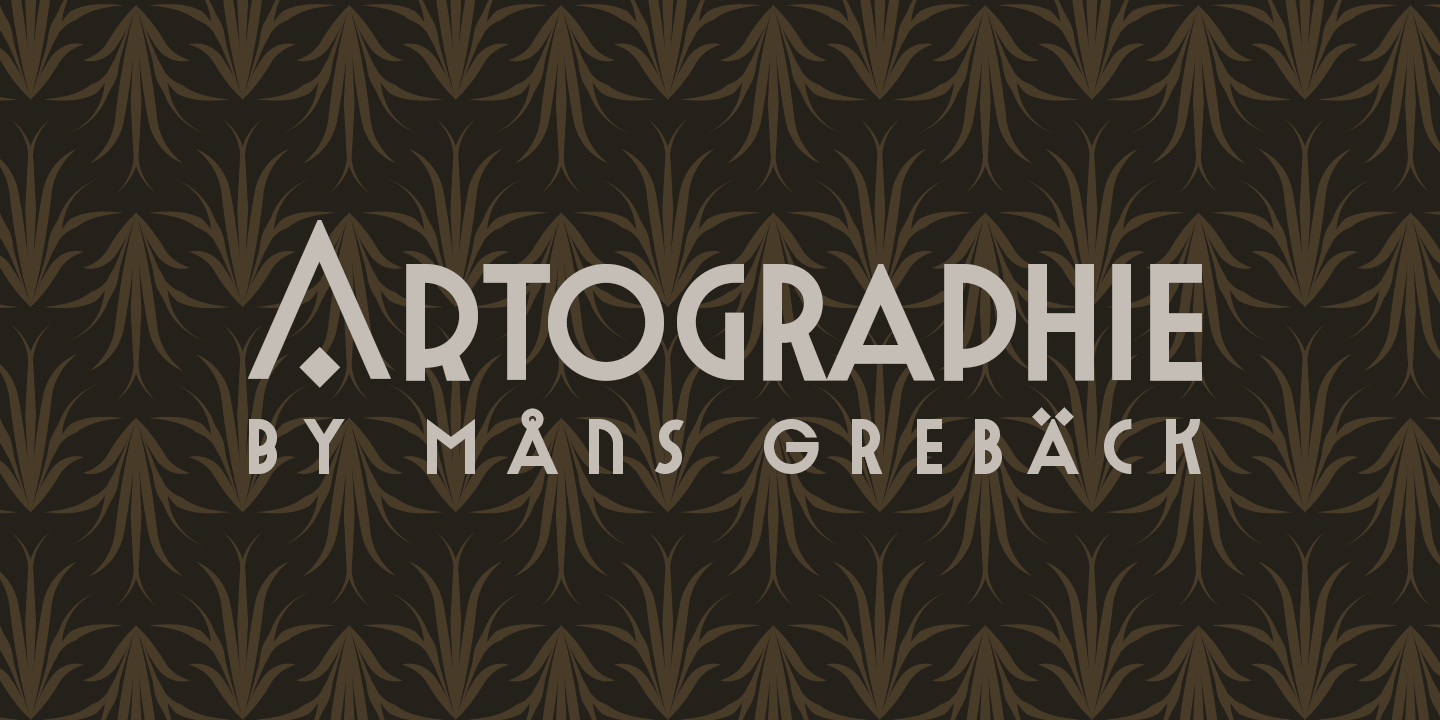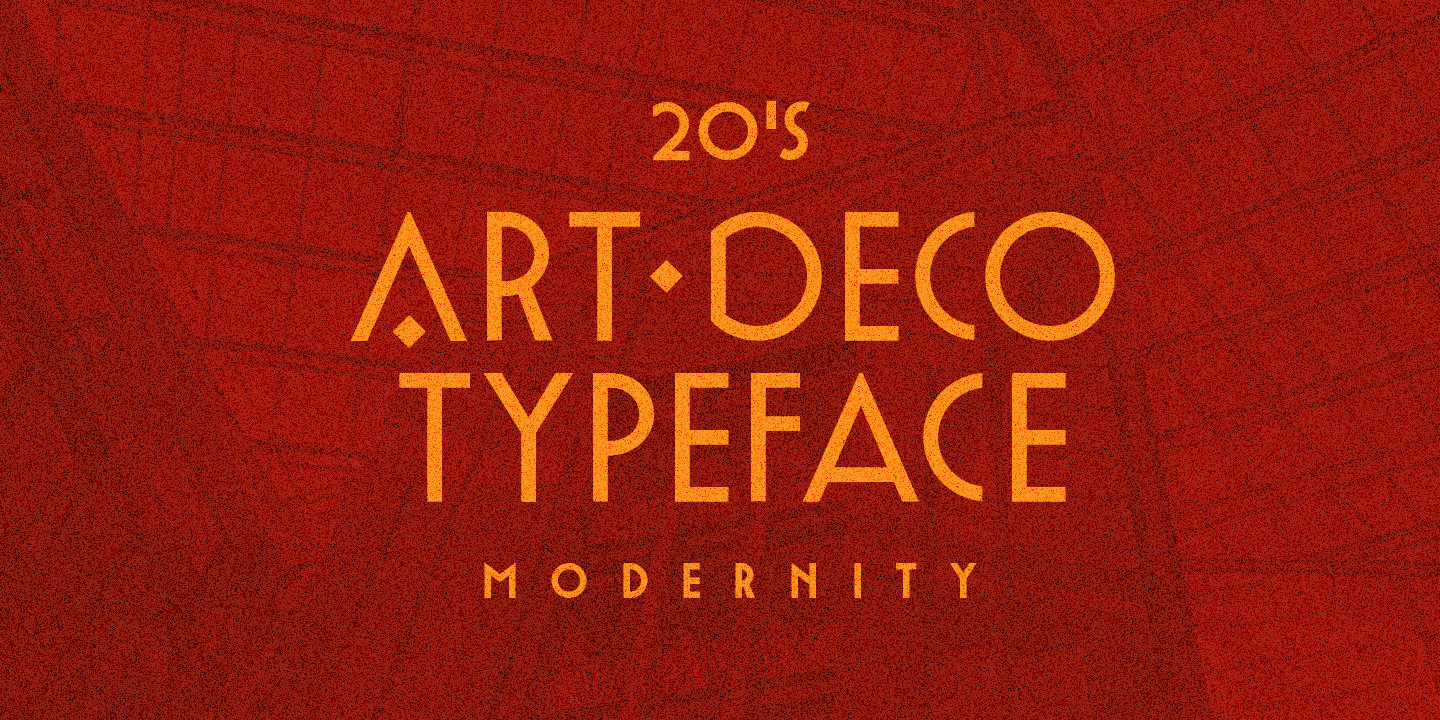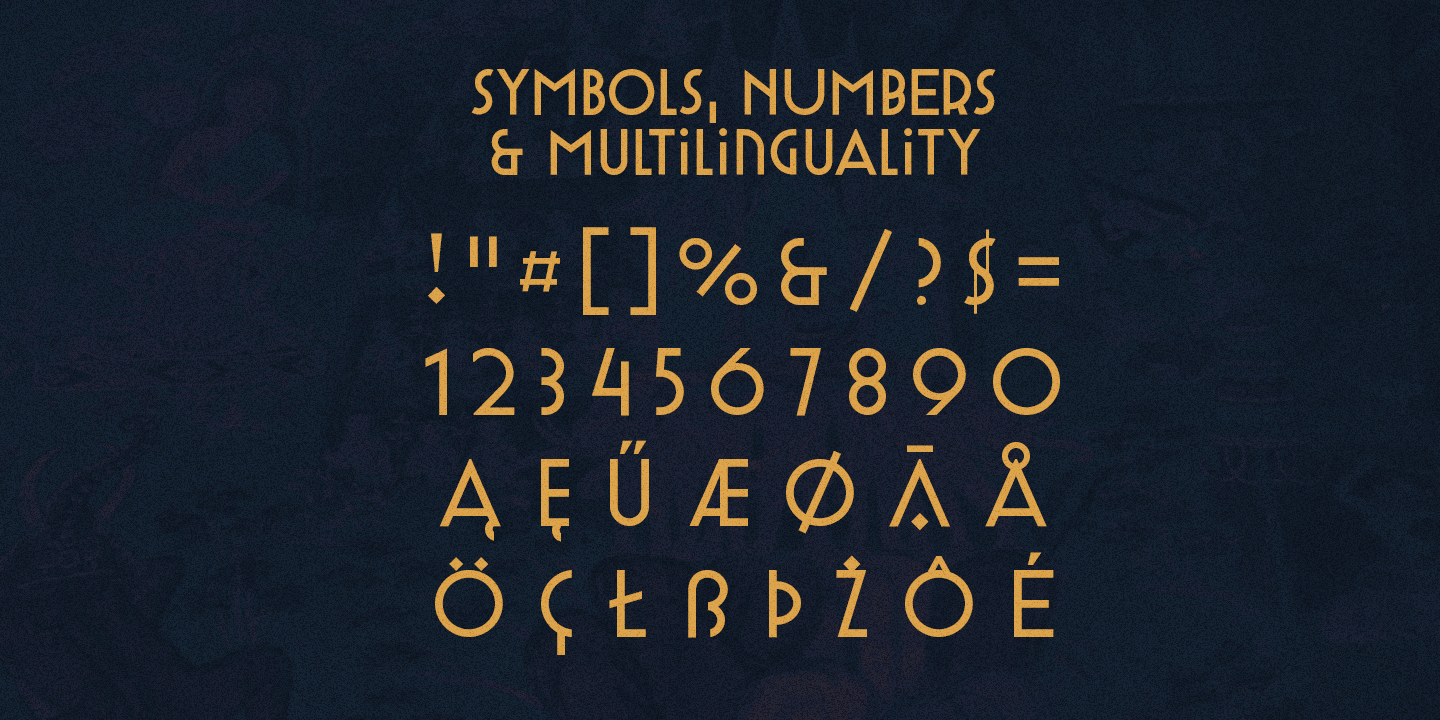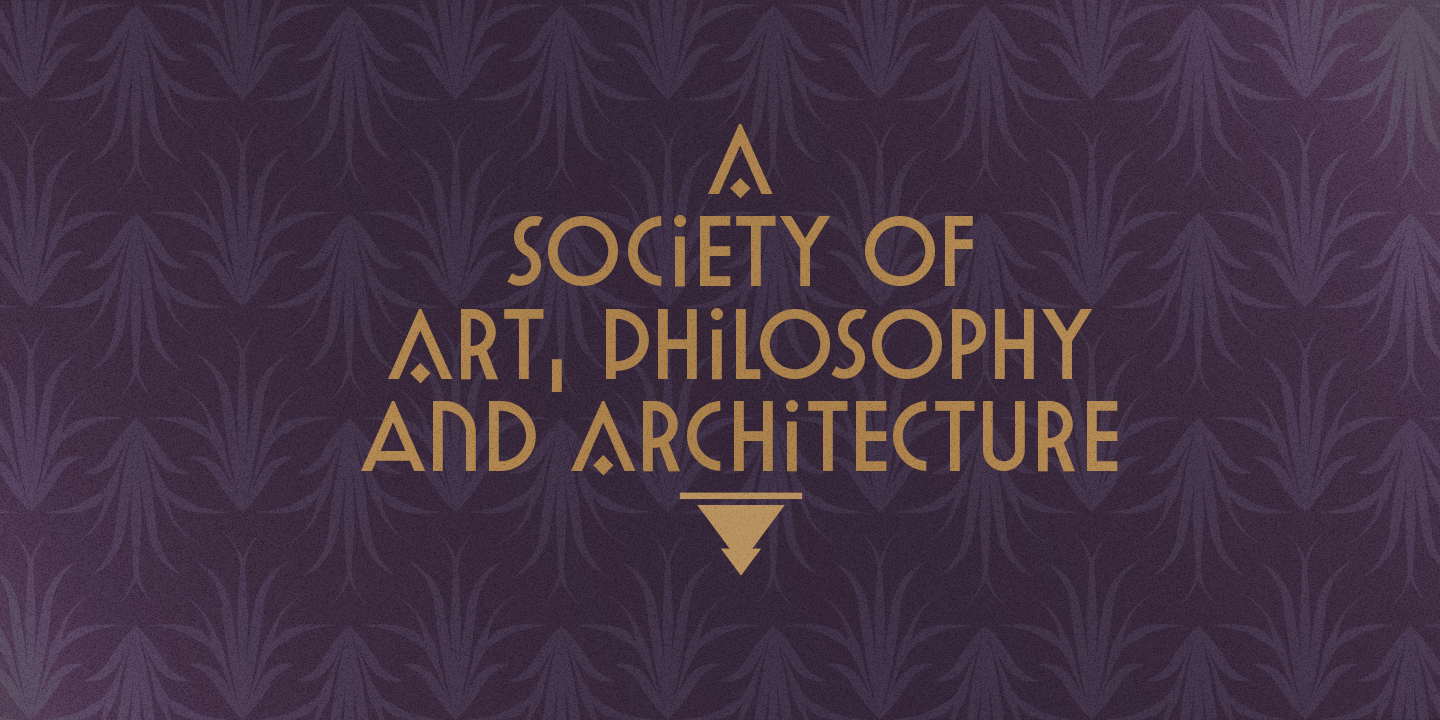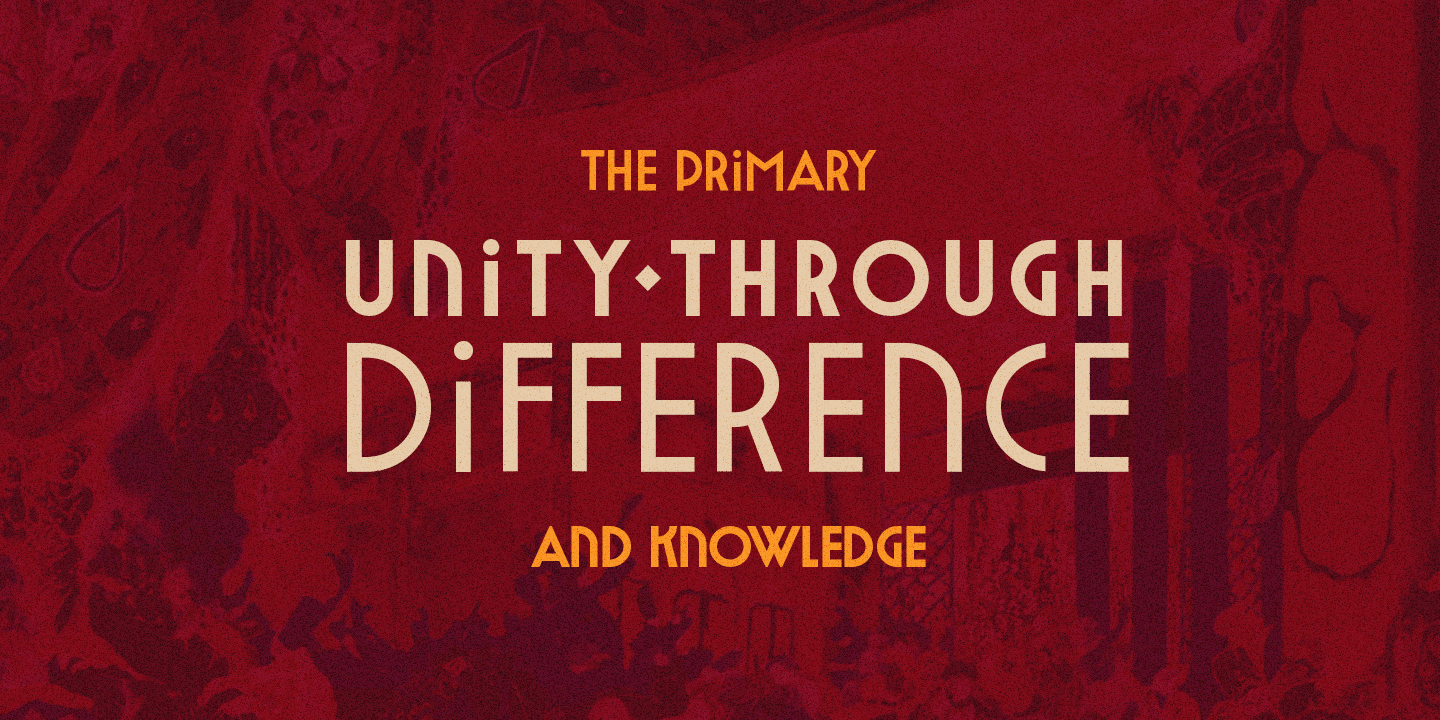
Artographie
Artographie is a Art Deco sans-serif family designed by Måns Grebäck during 2019 and 2020.
It gives any project a modernist appearance, as a reinvention of the hundred-year-old style of design, adapted and adjusted to fit in present-time purposes and technology.
The typeface is a family containing five styles: Thin, Light, Medium, Bold and Black. The weights are top quality and created to balance perfectly against each other. The font contains all characters you’ll ever need, including all punctuation and numbers.